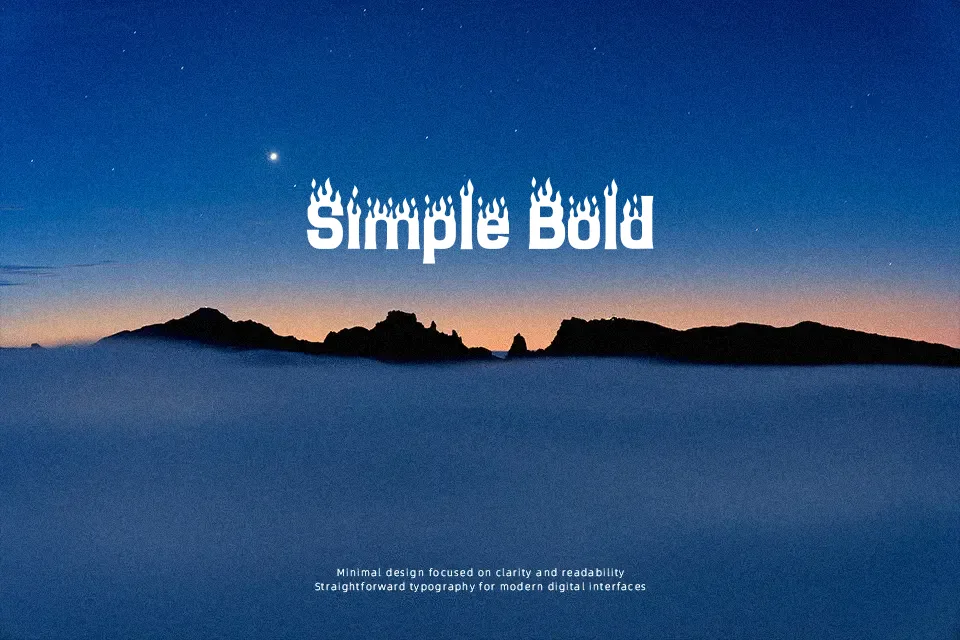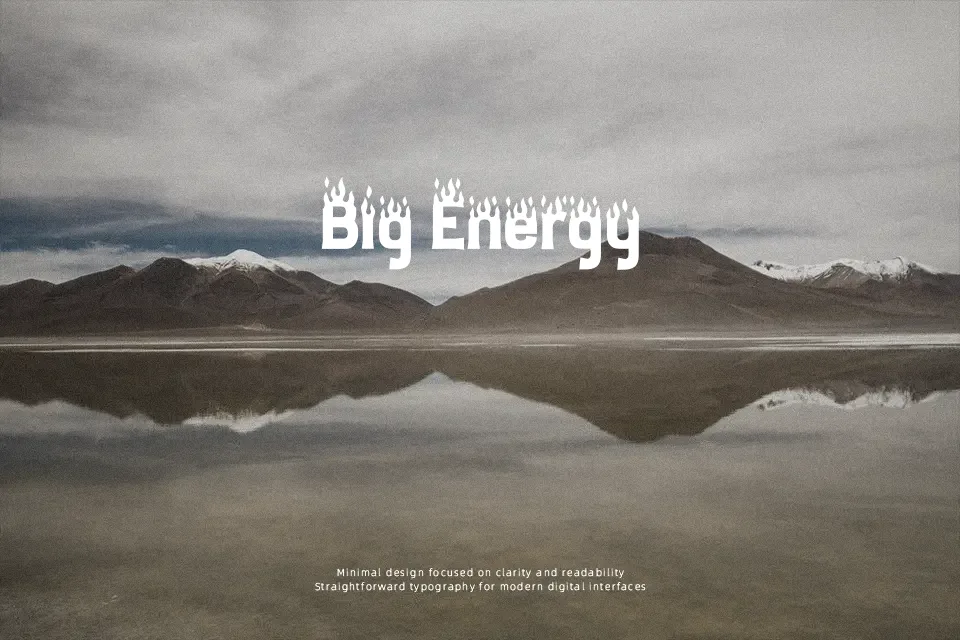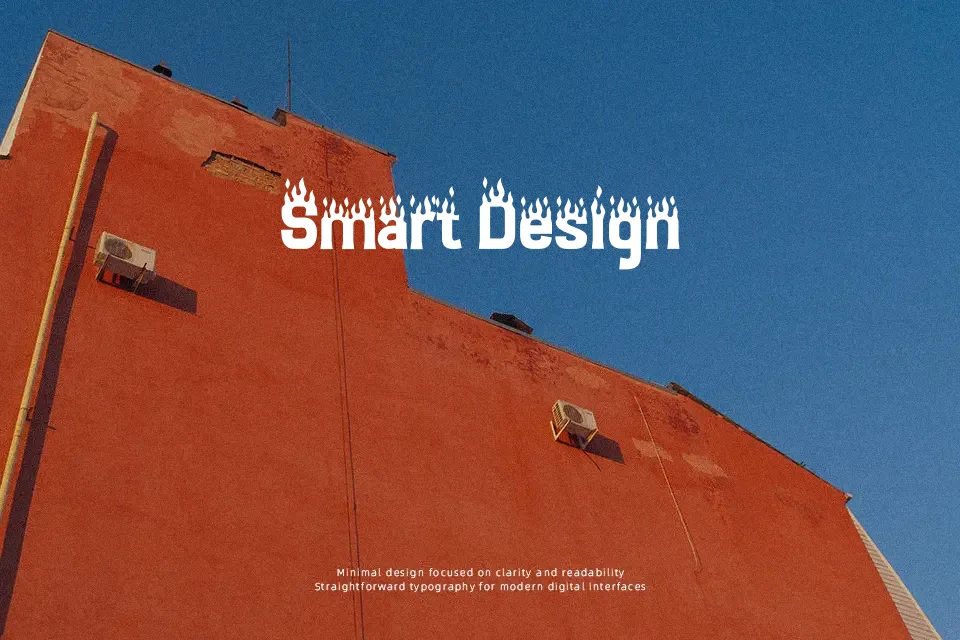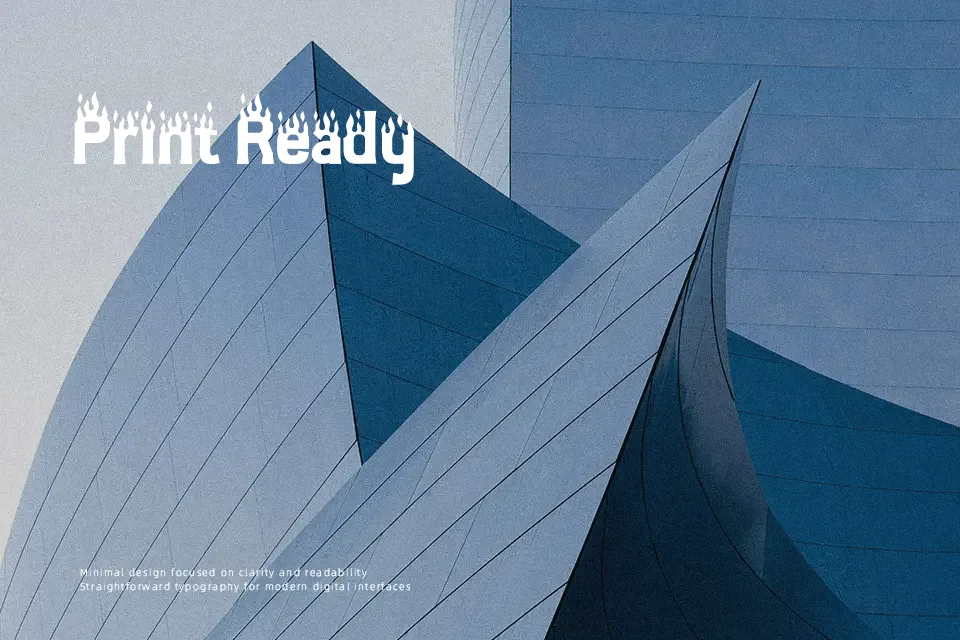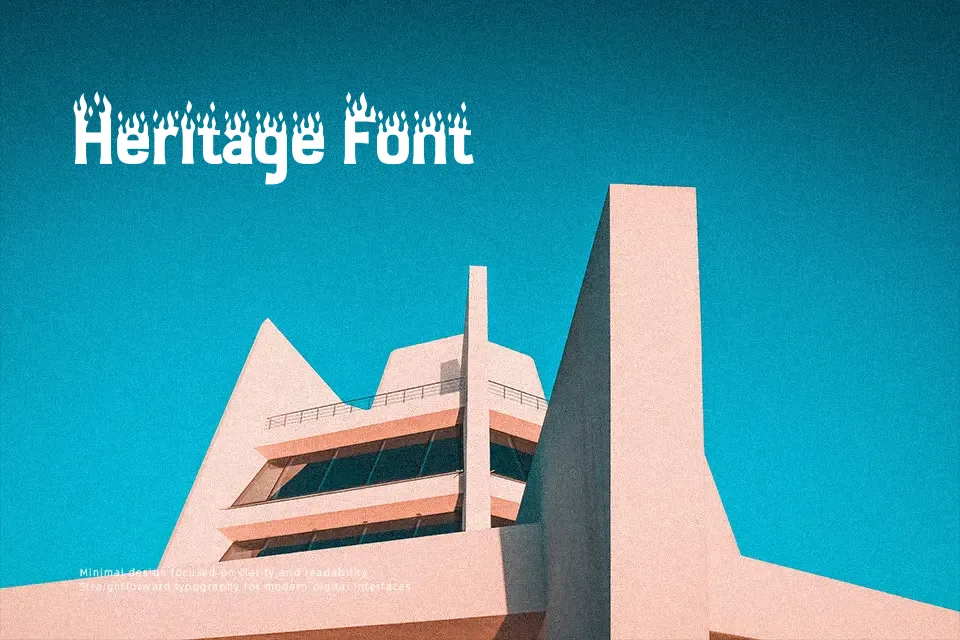
Vaguard Font
Designed by Yadhie Setiawan
Vaguard Font features an aggressive decorative display construction marked by sweeping fiery flourishes, heavy stroke weights, and sharp terminals. The letterforms maintain distinct character silhouettes with tight horizontal spacing and dramatic curves that emphasize kinetic energy. This design excels in high-impact scenarios such as esports team logos, cinematic title screens, and streetwear graphics where bold expression is paramount. However, the intricate silhouette details and dense weight significantly decrease legibility when scaled down to continuous text blocks. Generous display sizing allows its energetic contours to preserve visual clarity without crowding neighboring forms.
esports team logos
apparel graphics
streetwear branding
mobile app body copy
technical documentation